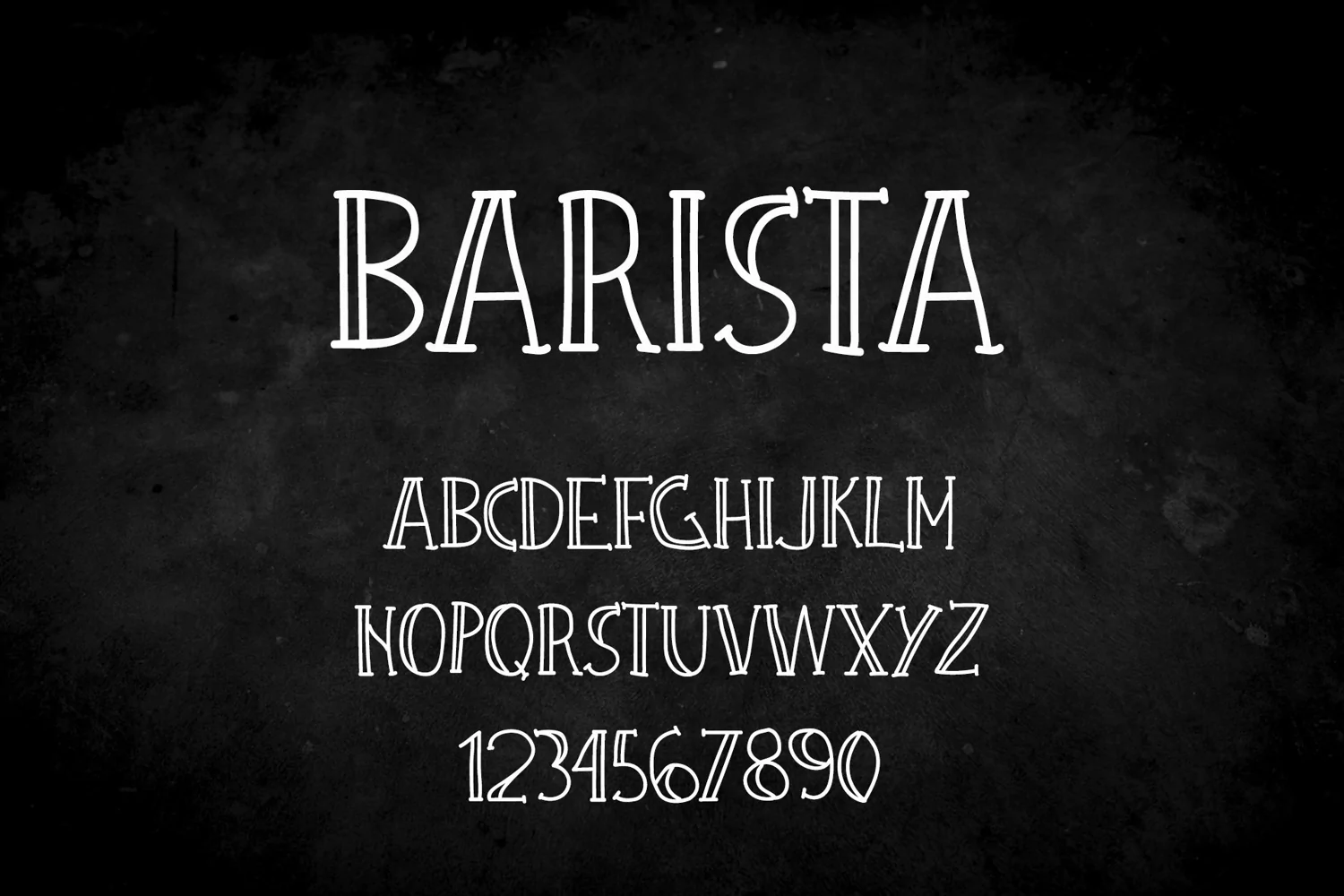
Urban Stencil Display Font
Barista Urban Display Typeface.
Barista font for hipster look.
Barista Coffee is an urban styled display font. It is ideal for magazine covers, logos, quotes, menus and so much more. Let your imagination run wild.